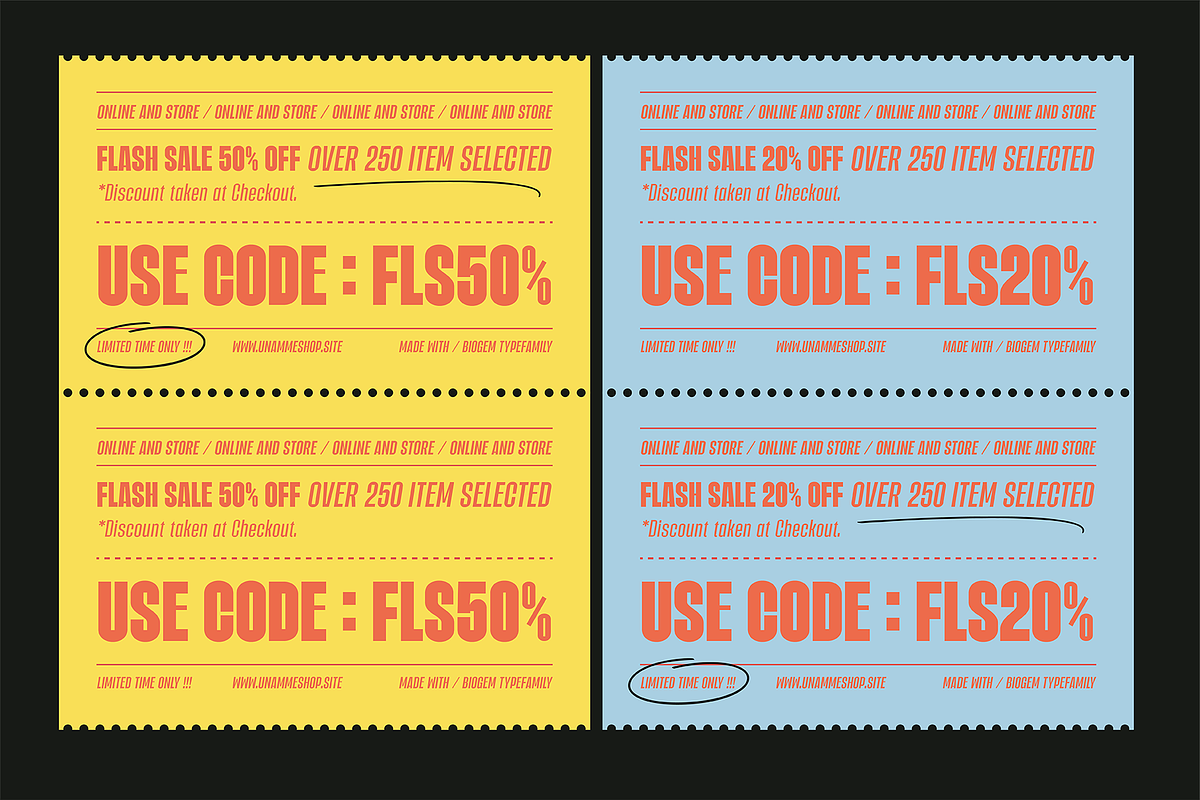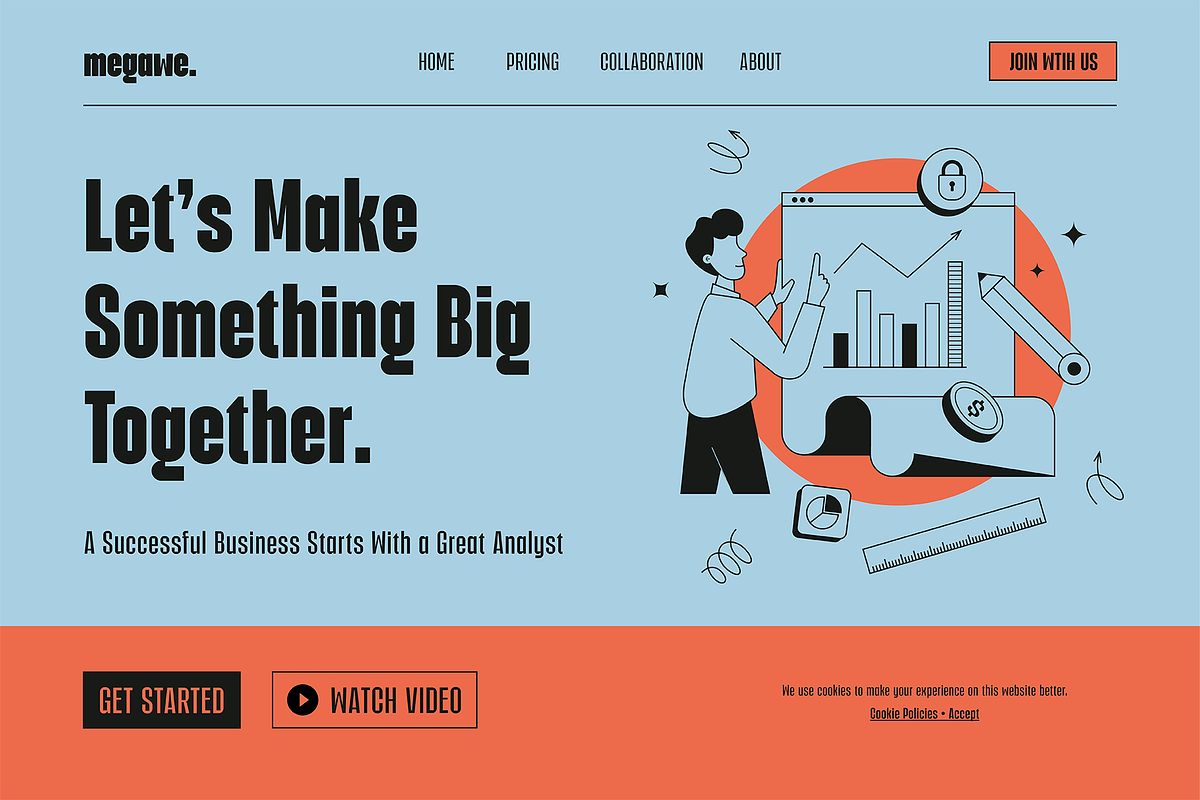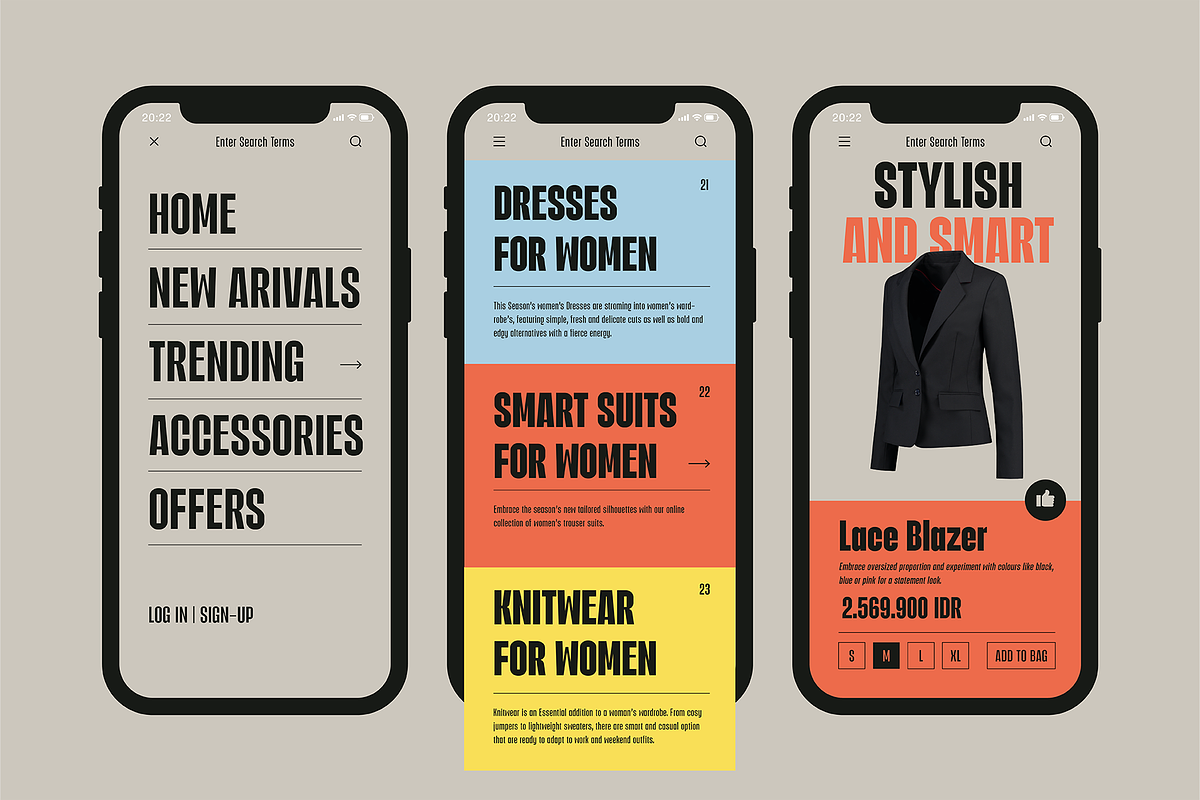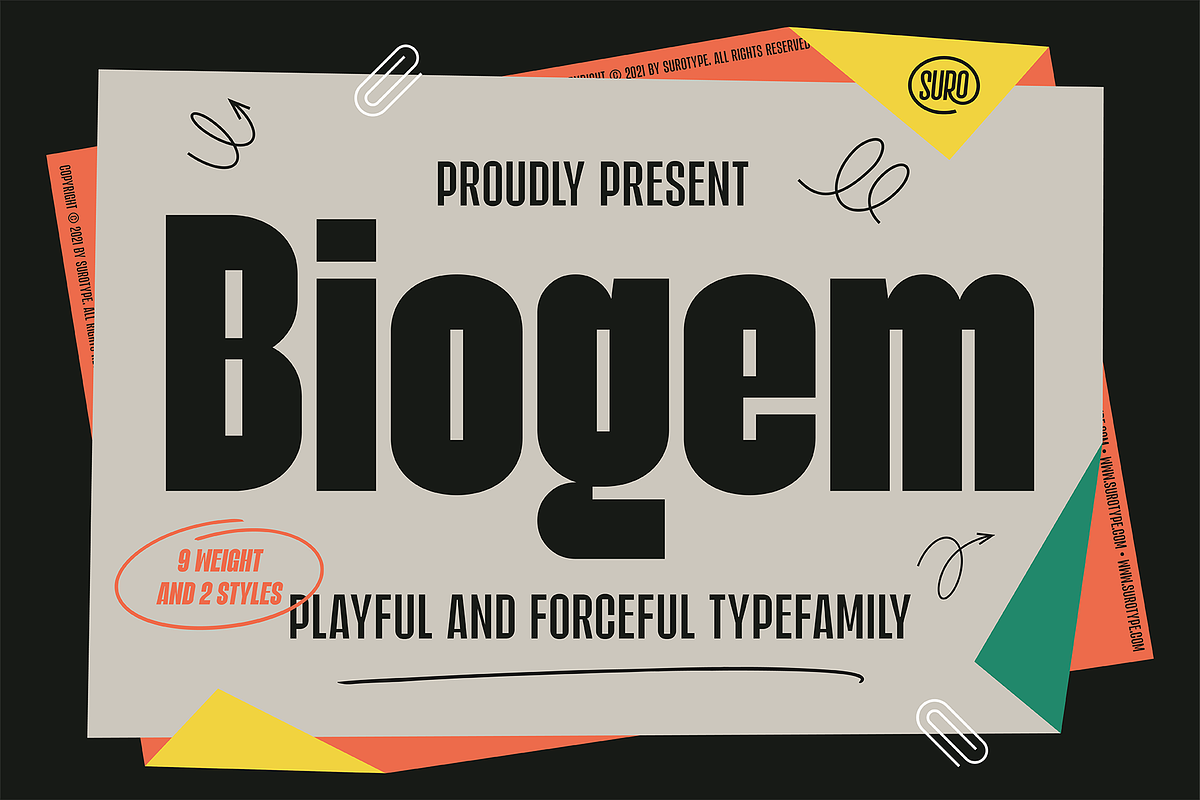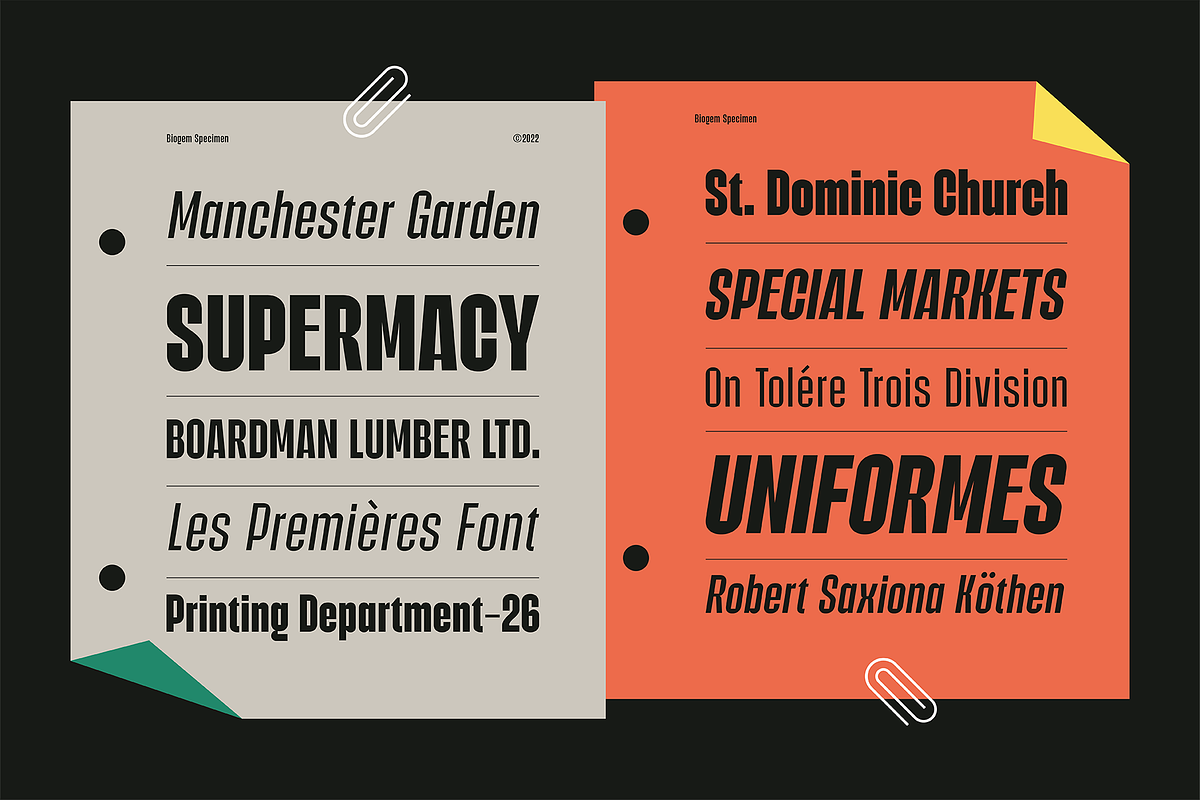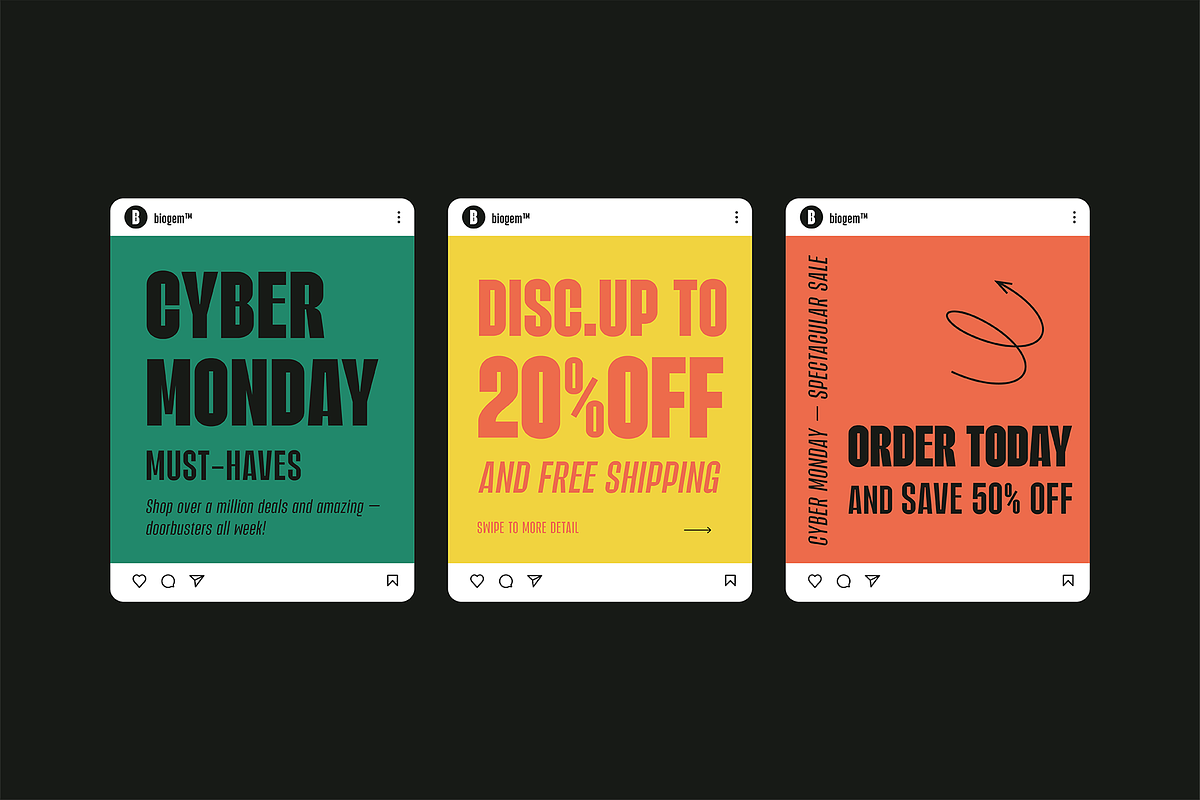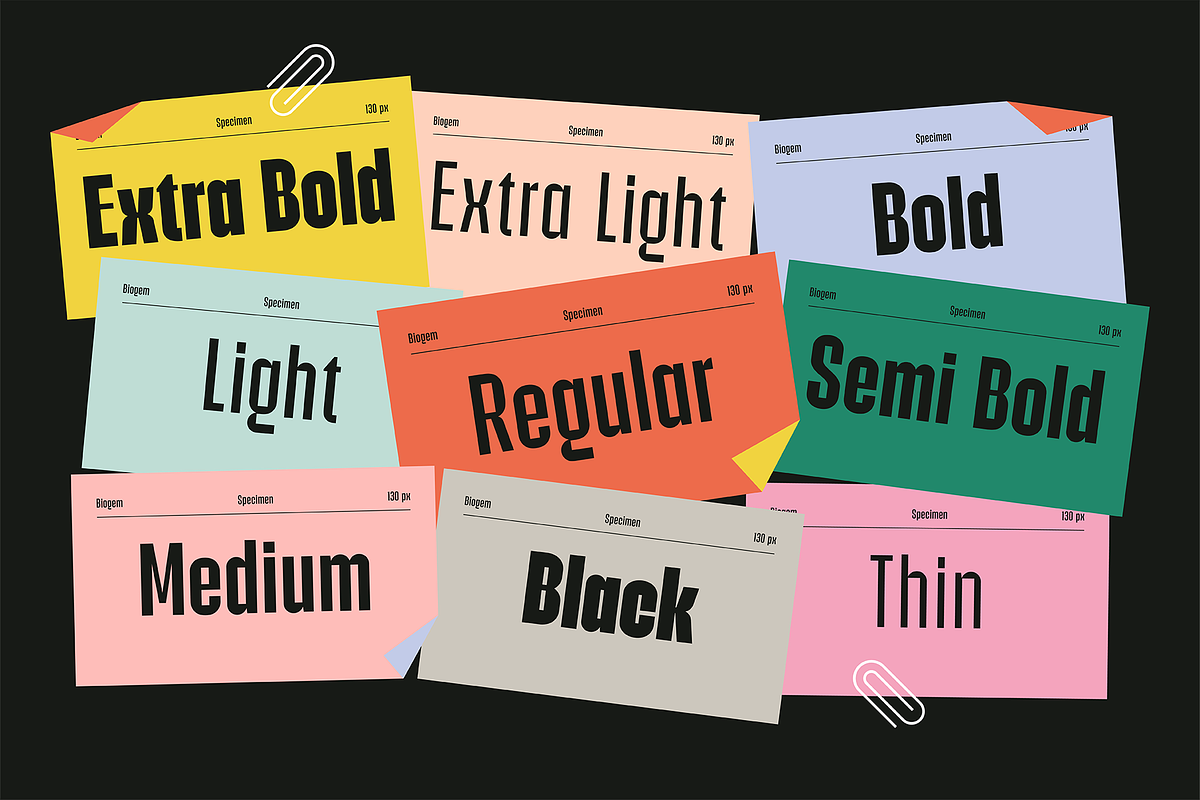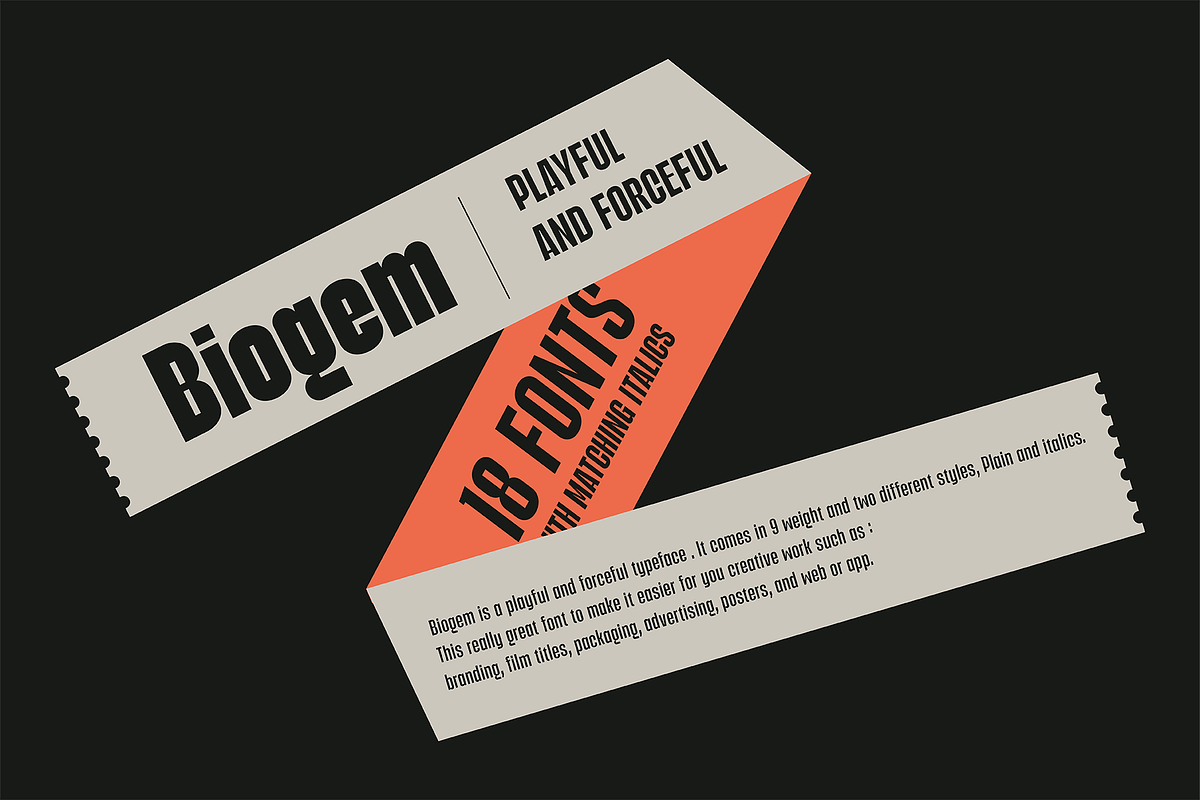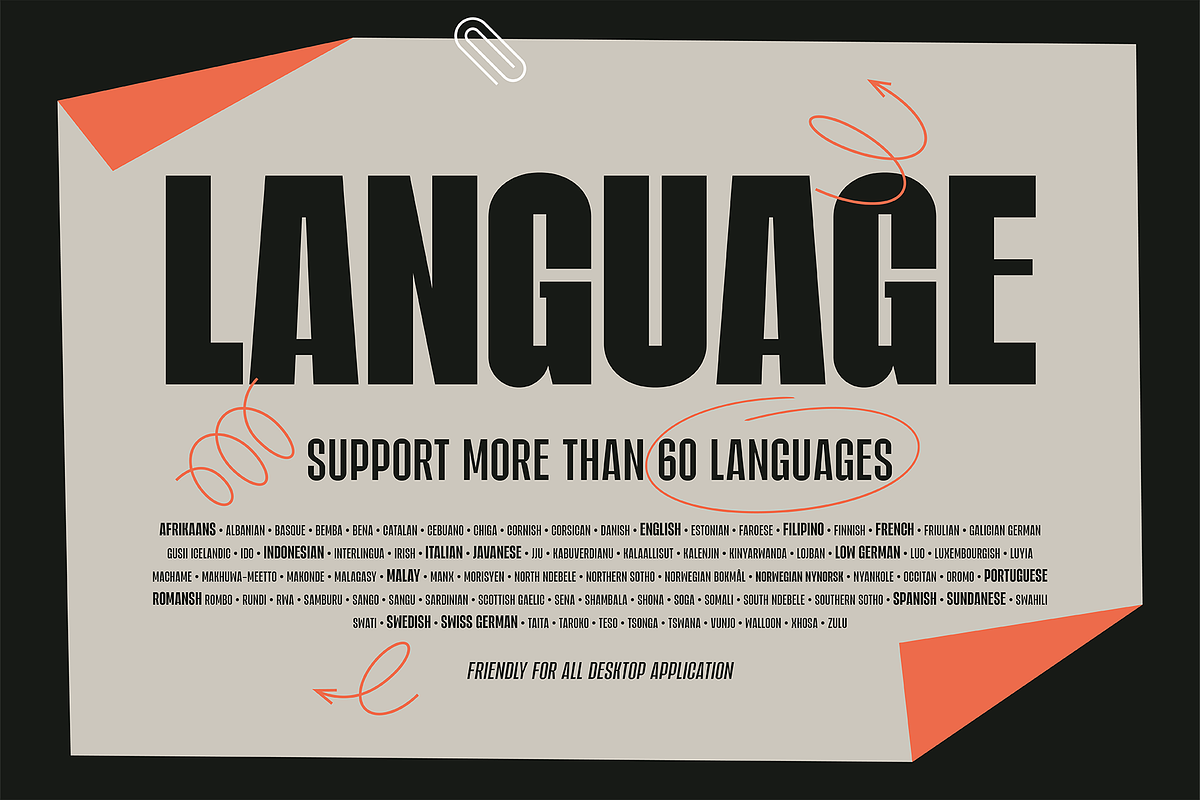
Biogem
Biogem is a playful and forceful typeface . Containing 18 fonts that include both Plain and Italic styles, Biogem has 9 weights ranging from Thin to Black.
This really great font to make it easier for you creative work such as : branding, film titles, packaging, advertising, posters, and web or app.